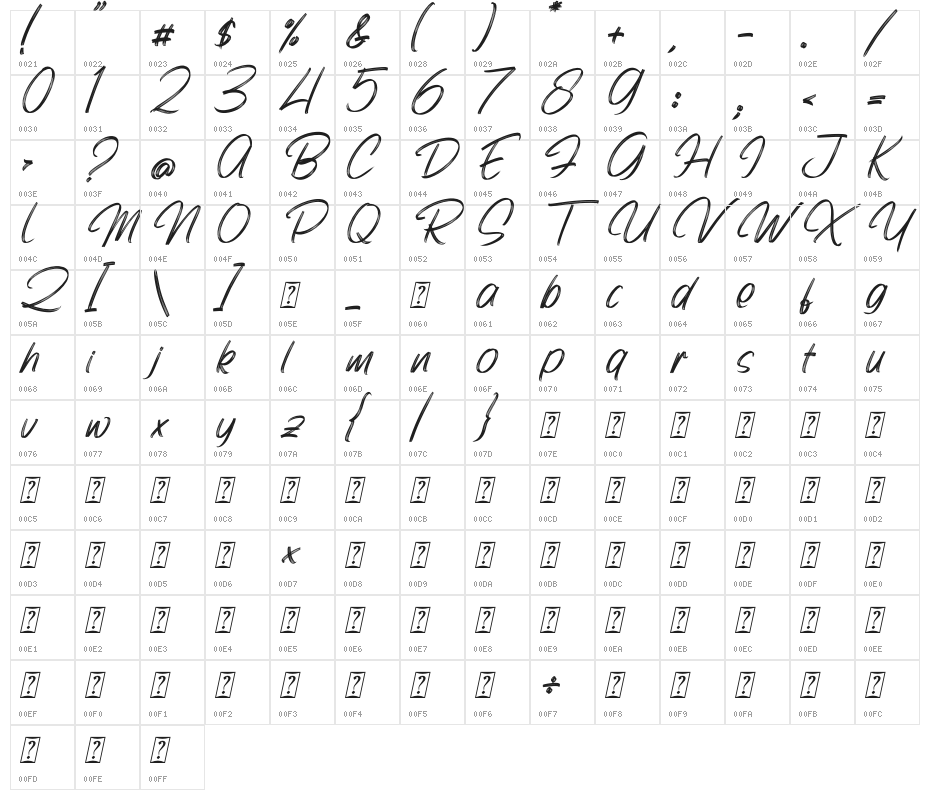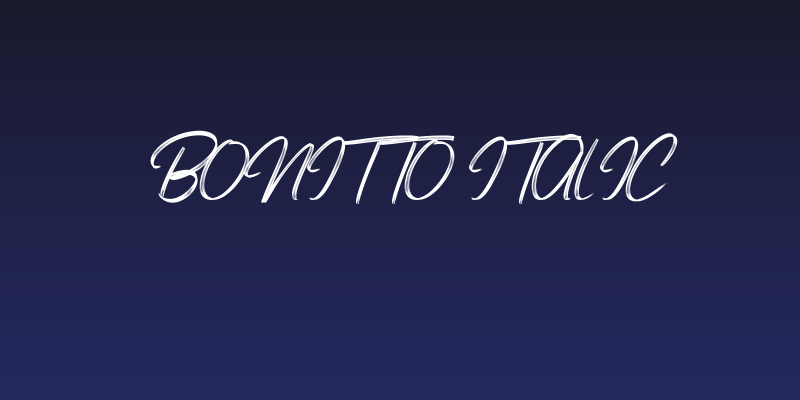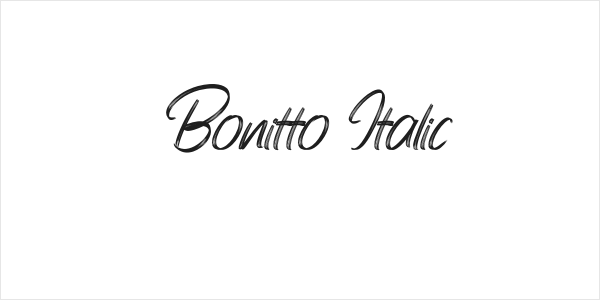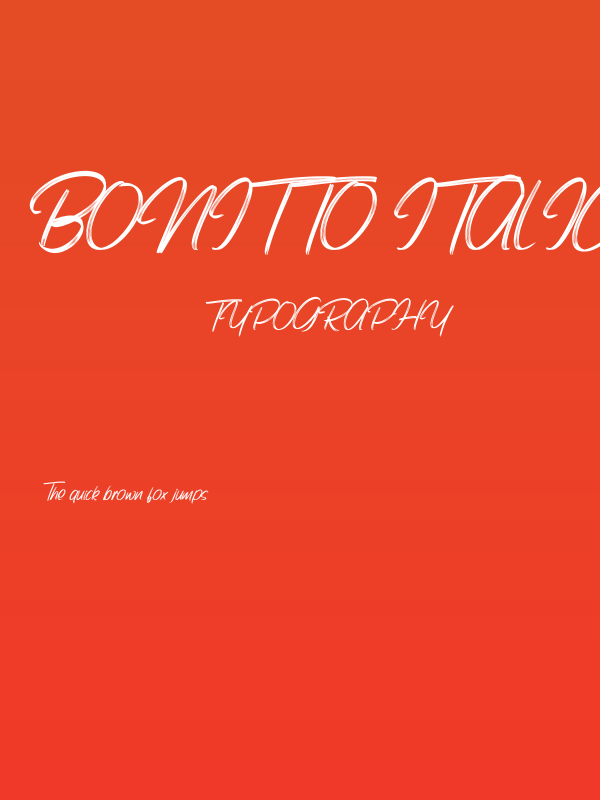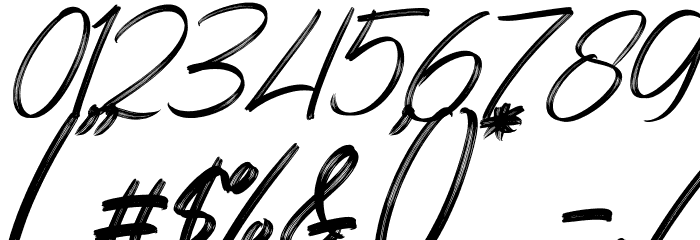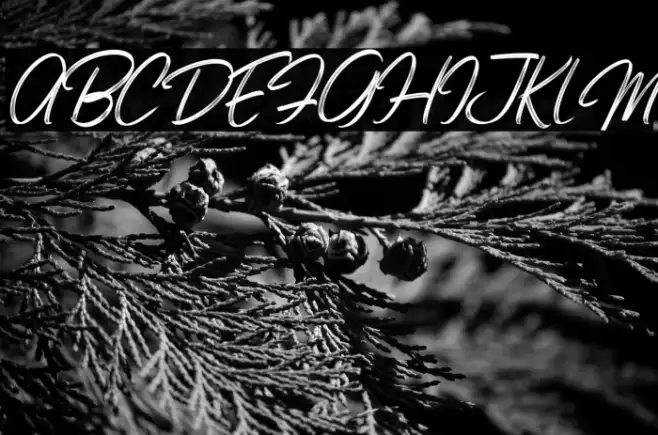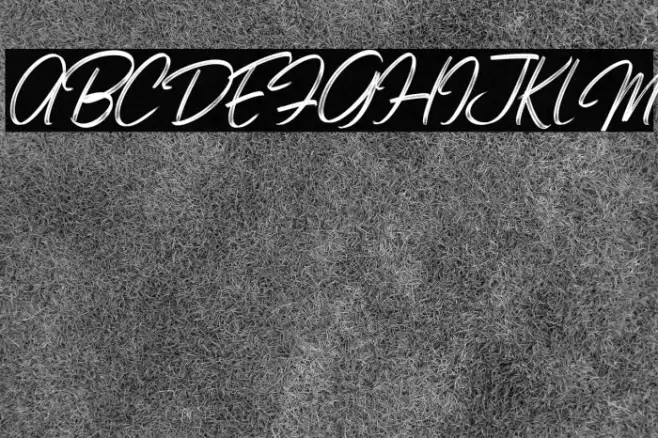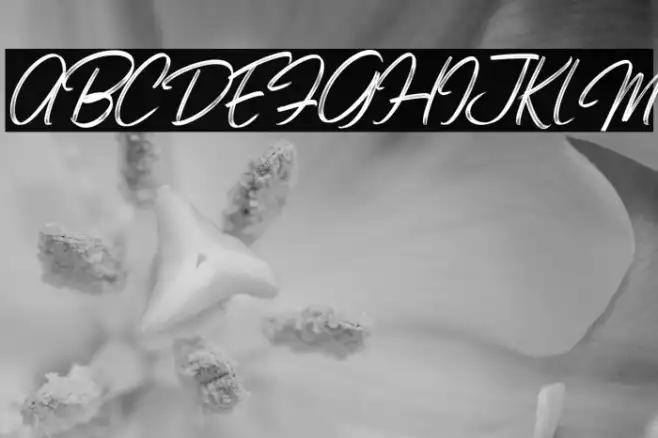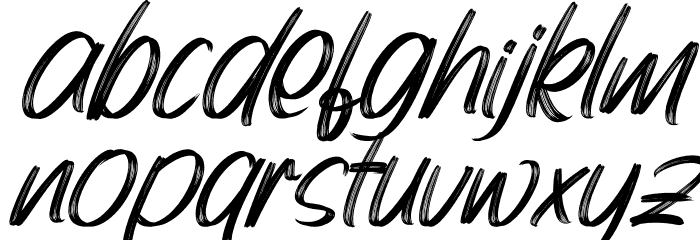
Bonitto Italic Font
Bonitto Italic Description
This font exudes a dynamic and energetic feel with its flowing, cursive style. The letters are slanted, giving a sense of motion and fluidity. The strokes are varied, with some parts being thick and others thin, creating a lively contrast. This script font is both elegant and expressive, making it suitable for creative and artistic projects. The uppercase letters are bold and prominent, while the lowercase letters maintain a consistent rhythm. The numbers and special characters are designed to match the overall aesthetic, ensuring a cohesive look across all text elements.
| Proposed Projects | Ideal for invitations, greeting cards, branding, and artistic designs. |